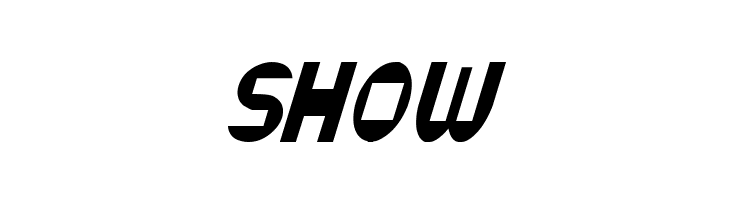
Republika V Bold Italic Font
- Font: Republika V Bold Italic
- Weight: Bold Italic
( Fonts by Dieter Schumacher )
A bold, italicized font with sharp angles and a futuristic style.